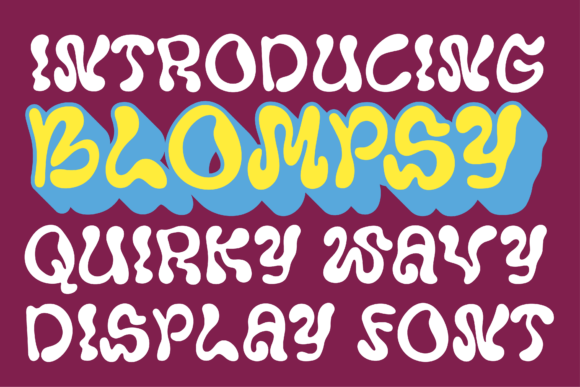
Introducing Blompsy Font: The Ultimate Psychedelic Font for Bold Headlines and Retro-Inspired Designs
Are you looking for a font that can add a touch of groovy energy to your creative projects? Look no further than Blompsy Font, a psychedelic font with a quirky and wavy style that’s perfect for bold headlines, music posters, and album covers. In this article, we’ll explore the features and benefits of Blompsy Font, and show you how it can elevate your designs to the next level.
What is Blompsy Font?
Blompsy Font is a unique and experimental font that brings retro charm with a modern twist. Its letterforms are designed to be eye-catching and psychedelic, making it an ideal title font for projects that need a bold and quirky vibe. With its wavy and irregular shapes, Blompsy Font is sure to add a touch of psychedelic energy to any design.
What Makes Blompsy Font Special?
So, what sets Blompsy Font apart from other fonts? Here are just a few features that make it special:
- Psychedelic style: Blompsy Font has a truly unique psychedelic style that’s perfect for retro-inspired designs, music branding, and bold headlines.
- Quirky and wavy letterforms: The font’s letterforms are designed to be quirky and wavy, adding a touch of energy and movement to any design.
- Experimental and modern: Blompsy Font brings retro charm with a modern twist, making it perfect for designers who want to create something truly unique.
- Multilingual support: The font includes multilingual support, making it perfect for designers who work with international clients or want to create designs that appeal to a global audience.
What Can I Use Blompsy Font For?
Blompsy Font is a versatile font that can be used for a wide range of design projects. Here are just a few ideas to get you started:
- Psychedelic & retro-inspired designs: Blompsy Font is perfect for designers who want to create psychedelic and retro-inspired designs that pop.
- Music branding, gig posters, and album artwork: The font’s psychedelic style makes it perfect for music branding, gig posters, and album artwork.
- Quirky editorial headlines & social media graphics: Blompsy Font is also great for creating quirky editorial headlines and social media graphics that stand out.
- Eye-catching titles for merchandise, stickers, and apparel: The font’s bold and quirky style makes it perfect for creating eye-catching titles for merchandise, stickers, and apparel.
- Uppercase & lowercase letters: The font includes both uppercase and lowercase letters, giving you maximum flexibility.
- Numbers, punctuation, and multilingual support: The font also includes numbers, punctuation, and multilingual support, making it perfect for a wide range of design projects.
Why Choose Blompsy Font?
So, why should you choose Blompsy Font for your design projects? Here are just a few reasons:
- Unique and eye-catching: Blompsy Font is a truly unique and eye-catching font that will add a touch of psychedelic energy to any design.
- Versatile: The font is versatile and can be used for a wide range of design projects, from music branding to editorial headlines.
In conclusion, Blompsy Font is a unique and versatile font that’s perfect for designers who want to add a touch of psychedelic energy to their design projects. With its quirky and wavy letterforms, experimental style, and multilingual support, Blompsy Font is an ideal choice for a wide range of design projects, from music branding to editorial headlines. So why not give it a try and see how it can elevate your designs to the next level?